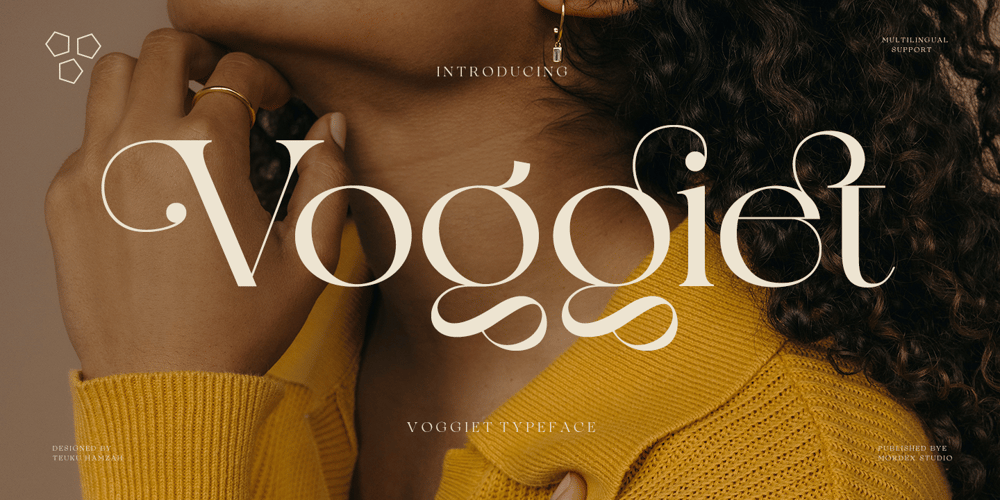
Voggiet
Voggiet font
Voggiet Font Family was designed by Teuku Hamzah and published by Mordex Studio. Voggiet contains 1 styles and family package options. Voggiet is a beautiful, high-contrast serif font with a distinctive look. the Voggiet font also combines organic details with strong geometric shapes.Voggiet font has a unique and organic character. With a range of different styles, you can change the feel of your designs from more organic to more standard. The typeface also offers many options, such as modern (fancy) Alternates and Ligatures.This elegant font is a must have in your collection and is perfect for your fancy design projects. Examples include fashion, logo design, branding design, wedding design, product packaging design, advertising, products, labels, photography, social media, and other products.This font is also PUA encoded, which means you can easily access all the glyphs and strokes.